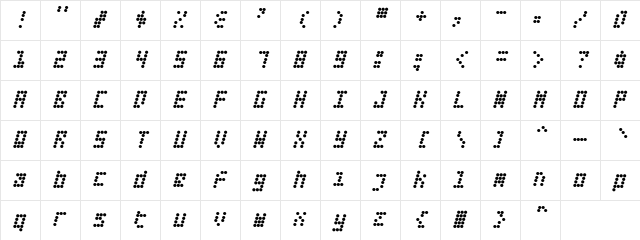
Fifteen Okay Slanted Regular Free Font
Fifteen Okay Slanted Regular
Design Context for Fifteen Okay Slanted
Fifteen Okay Slanted is a composed and adaptable typeface that performs quietly and consistently across a wide range of design contexts. The slanted form adds forward momentum and visual energy.
Pro Tip: Use Fifteen Okay Slanted for emphasis, pull quotes, and subheadings where its slanted energy can add rhythm to the layout.